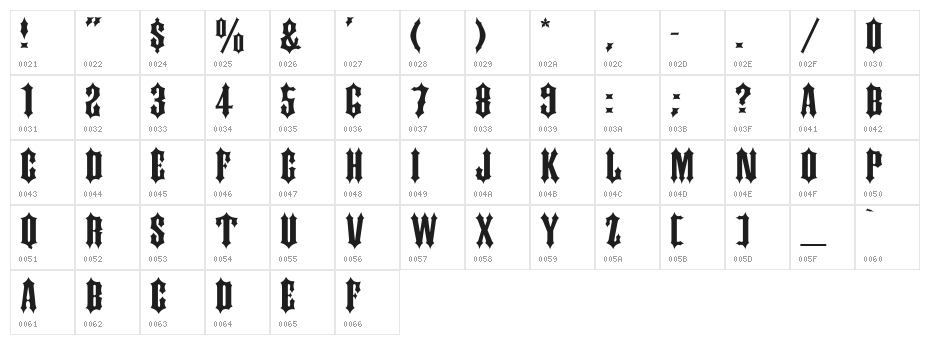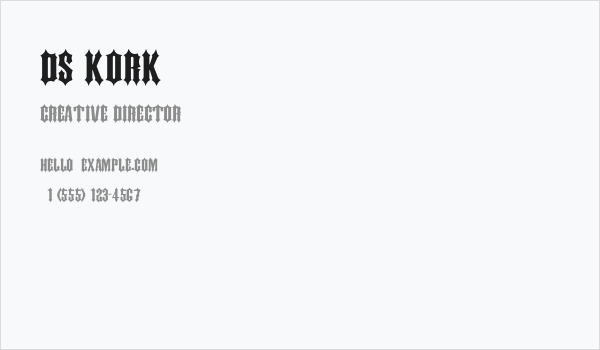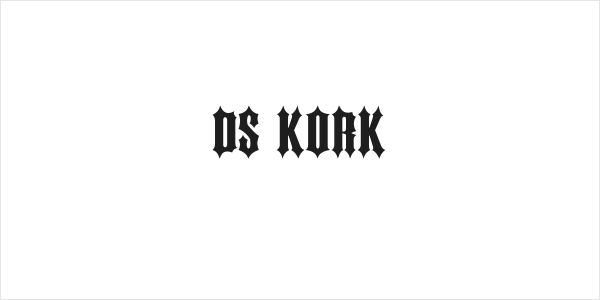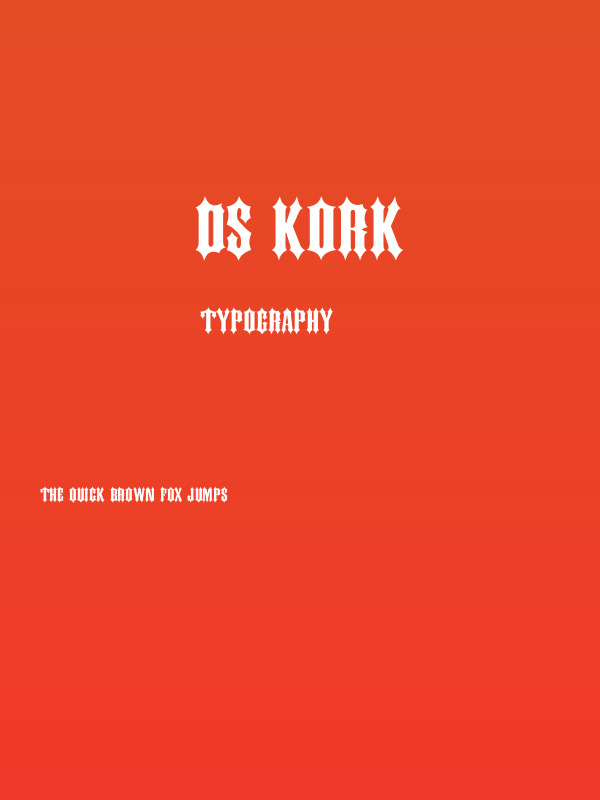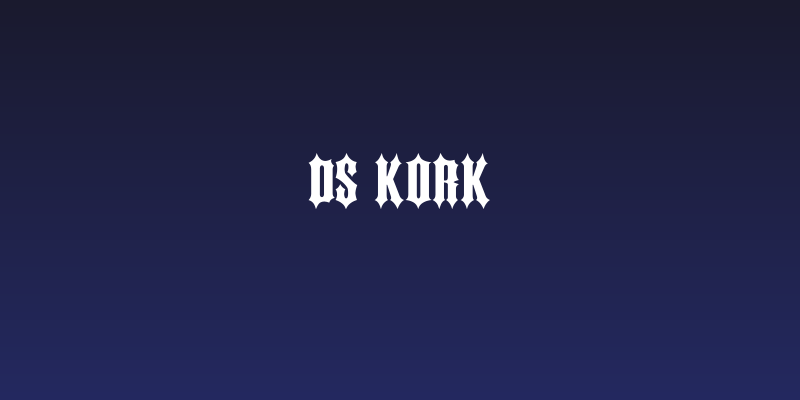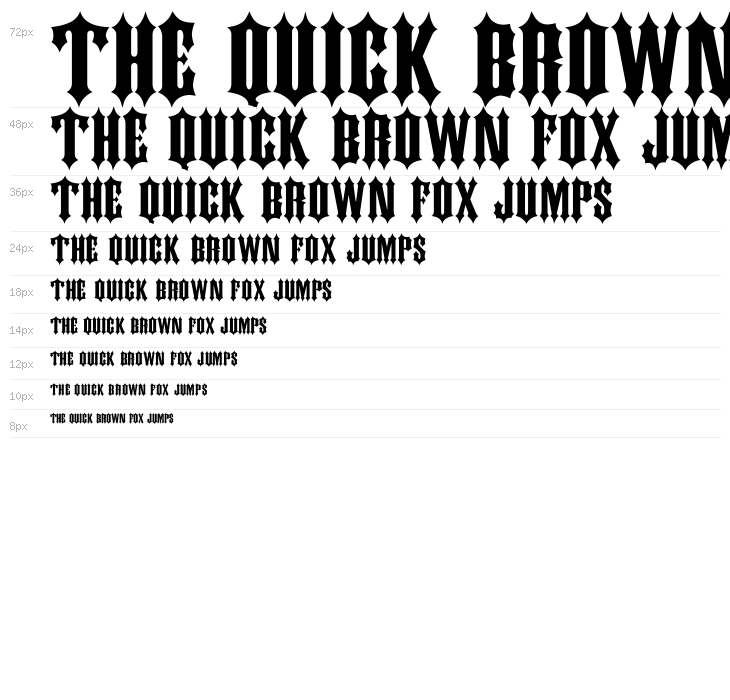
DS Kork Font
DS Kork Description
This font features a bold and striking design with sharp, angular edges and a distinct Gothic influence. The characters are heavily stylized, with dramatic serifs and a strong vertical emphasis, creating a sense of power and authority. The uppercase and lowercase letters maintain a consistent style, while the numbers and special characters complement the overall aesthetic. The font's intricate details and unique shapes make it highly decorative, suitable for projects that require a bold statement.
Proposed ProjectsIdeal for branding, posters, album covers, and any project needing a bold, dramatic impact.